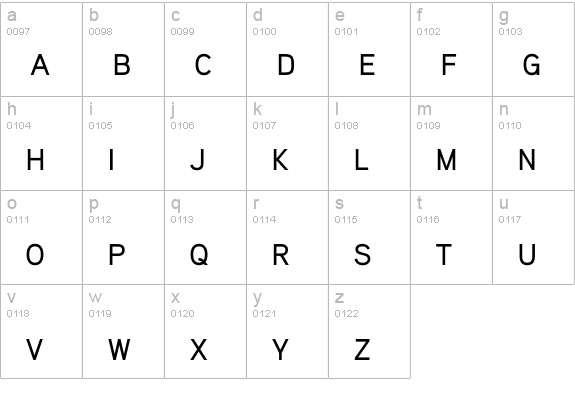
Aaux ProRegular SC Font Details
Aaux ProRegular SC font is a versatile and modern typeface that exudes sophistication and elegance. With its clean lines and balanced proportions, this font is perfect for a wide range of design projects, from branding to web design. Its sleek and professional appearance makes it ideal for conveying a sense of professionalism and style. The Aaux ProRegular SC font is available for free download at FontsMarket.com, making it accessible to designers and creatives looking to elevate their work with a high-quality typeface. Whether you're working on a corporate identity, marketing materials, or digital content, this font is sure to make a strong impression. Don't miss out on the opportunity to enhance your projects with the Aaux ProRegular SC font. Download it for free today at FontsMarket.com and take your designs to the next level.